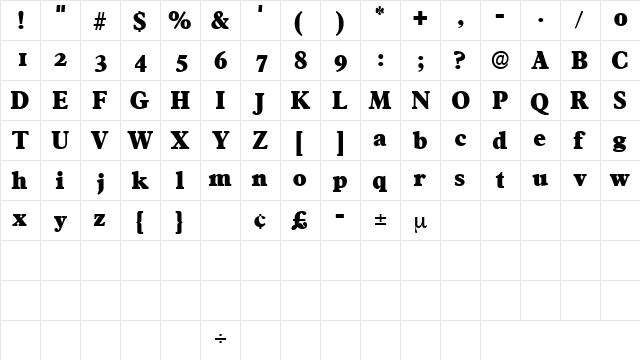
TympanDisplaySSK Regular
Design Context for TympanDisplaySSK Typeface
TympanDisplaySSK brings ornamental detail and strong personality to headlines and identities, where visual impact matters more than quiet functionality.
Font Pairing: Pair with a clean neutral sans-serif for body copy to let TympanDisplaySSK's character lead without overwhelming the composition.
Pro Tip: Treat TympanDisplaySSK as the centrepiece of your typographic hierarchy. One strong heading set in a decorative face can carry an entire layout.